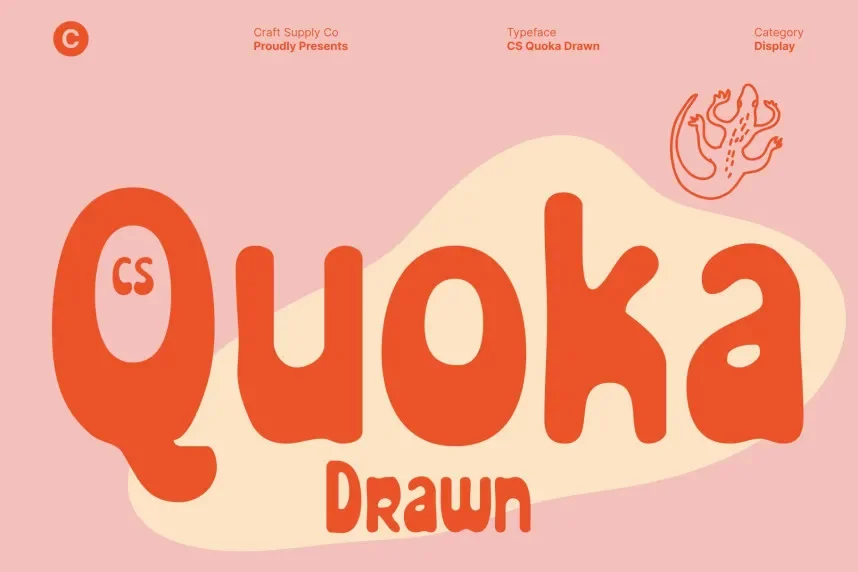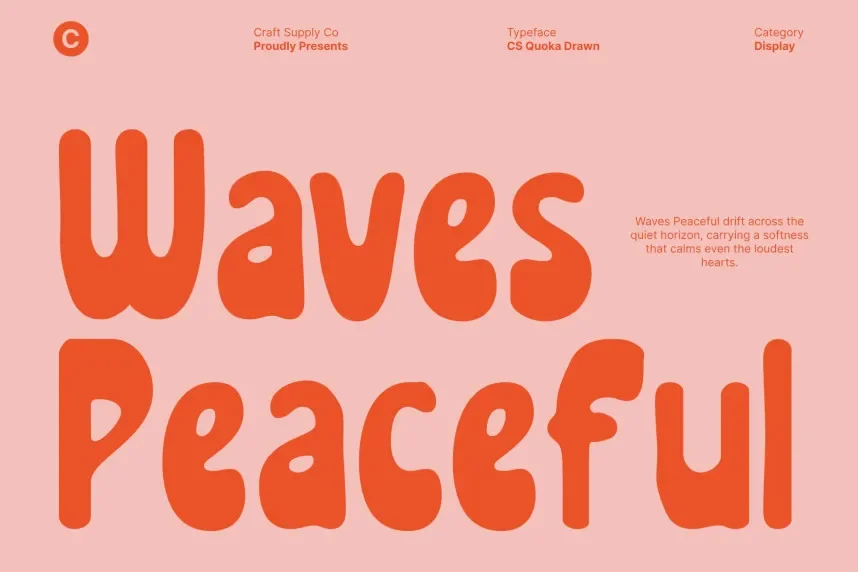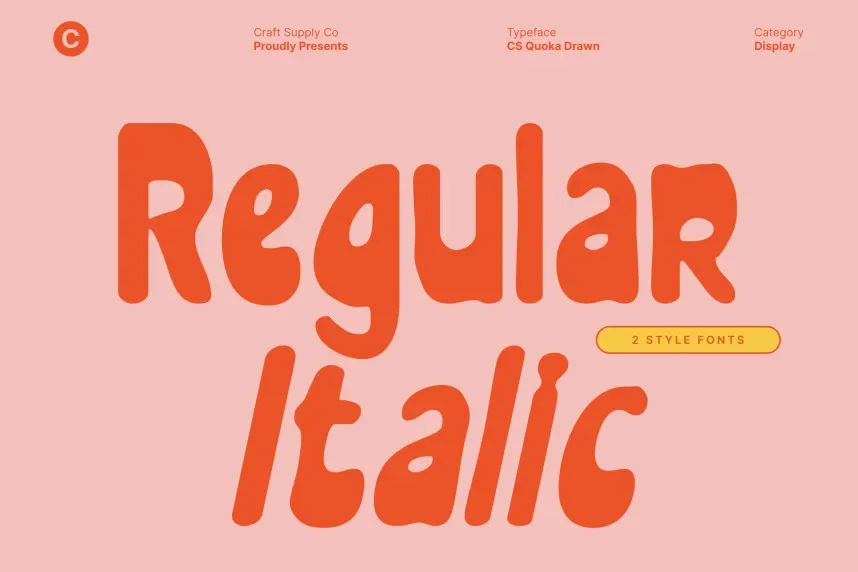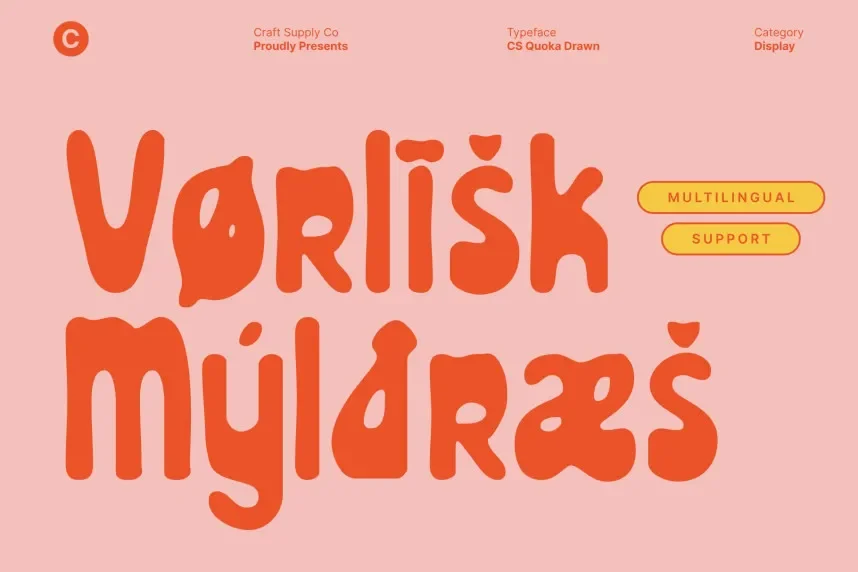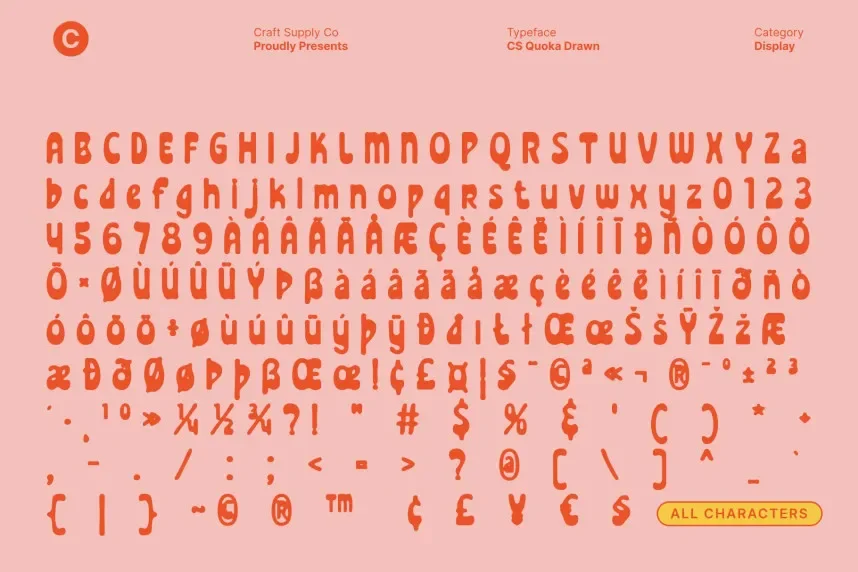
CS Quoka Drawn Font is a playful hand-drawn typeface with a dynamic structure and bold forms. It’s ideal for projects that require a fun, informal aesthetic, such as branding, event promotions, and product packaging.
Best used for logos, promotional graphics, and creative branding, CS Quoka Drawn Font pairs well with modern, simple fonts for readability. Available in TTF and OTF formats, it includes a commercial-use license. Always check the license for commercial use.